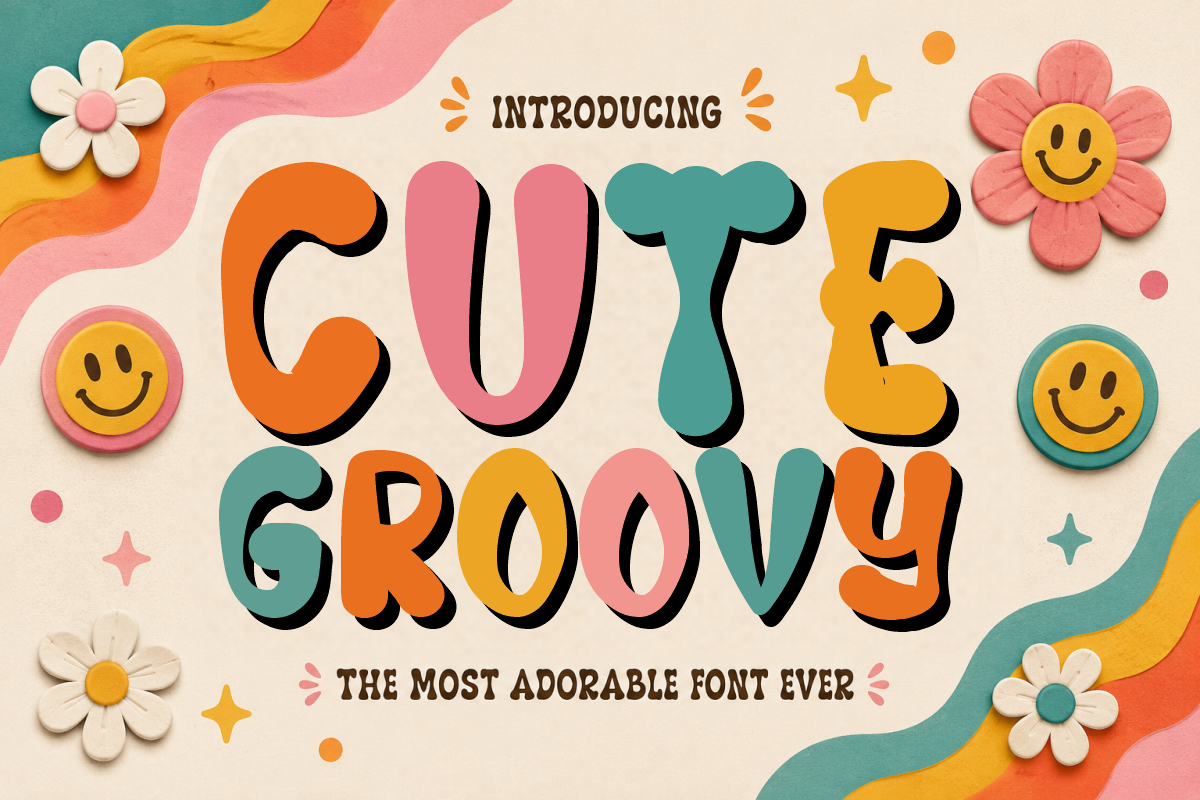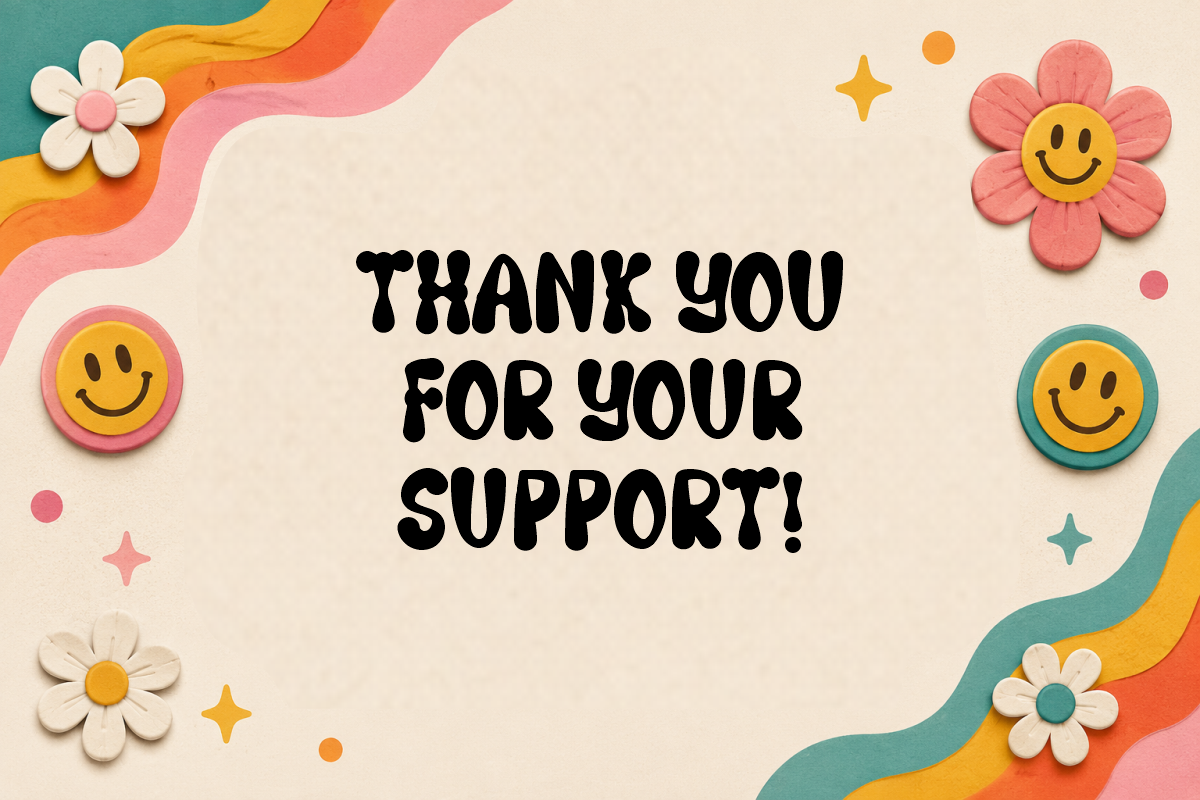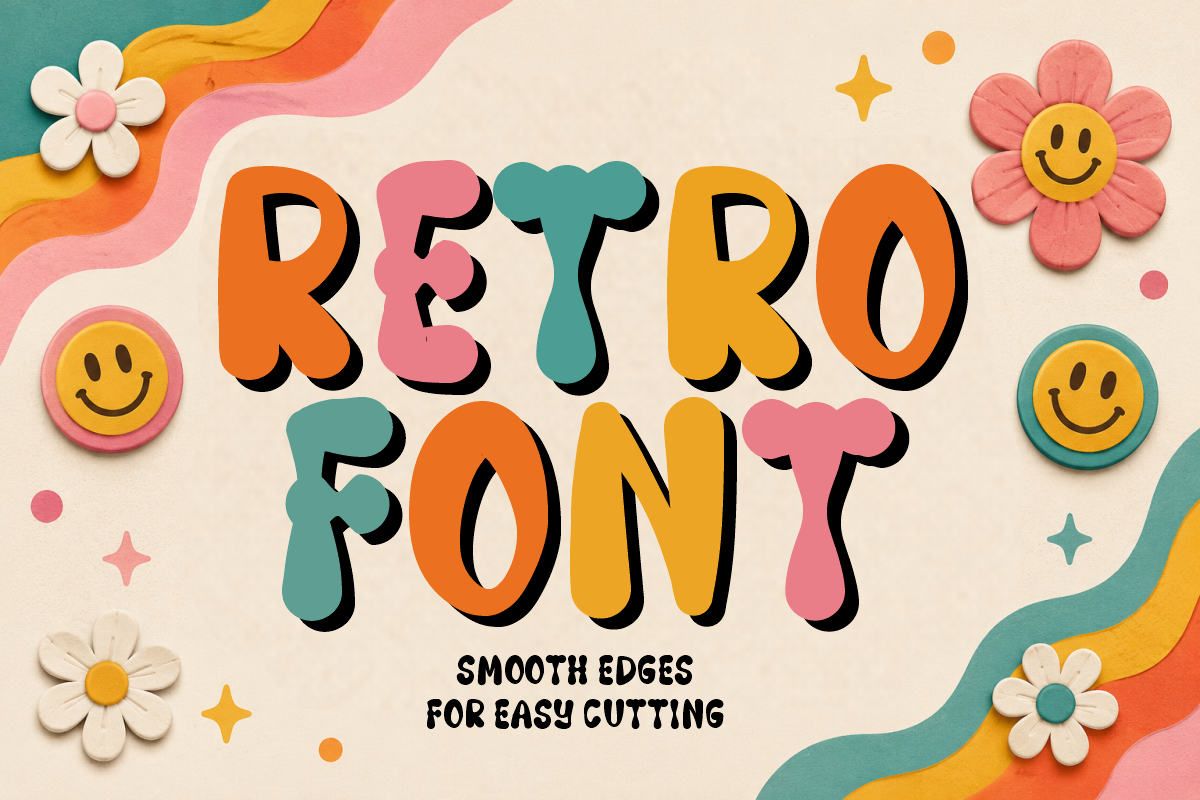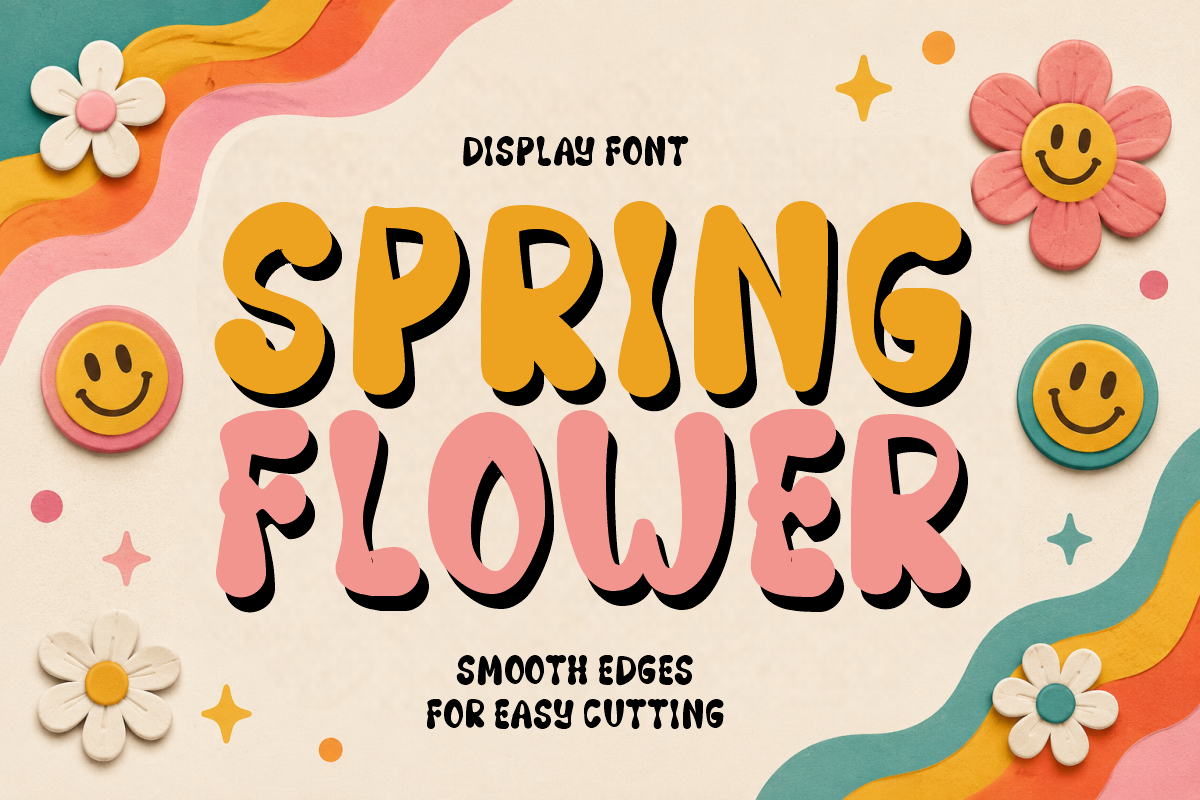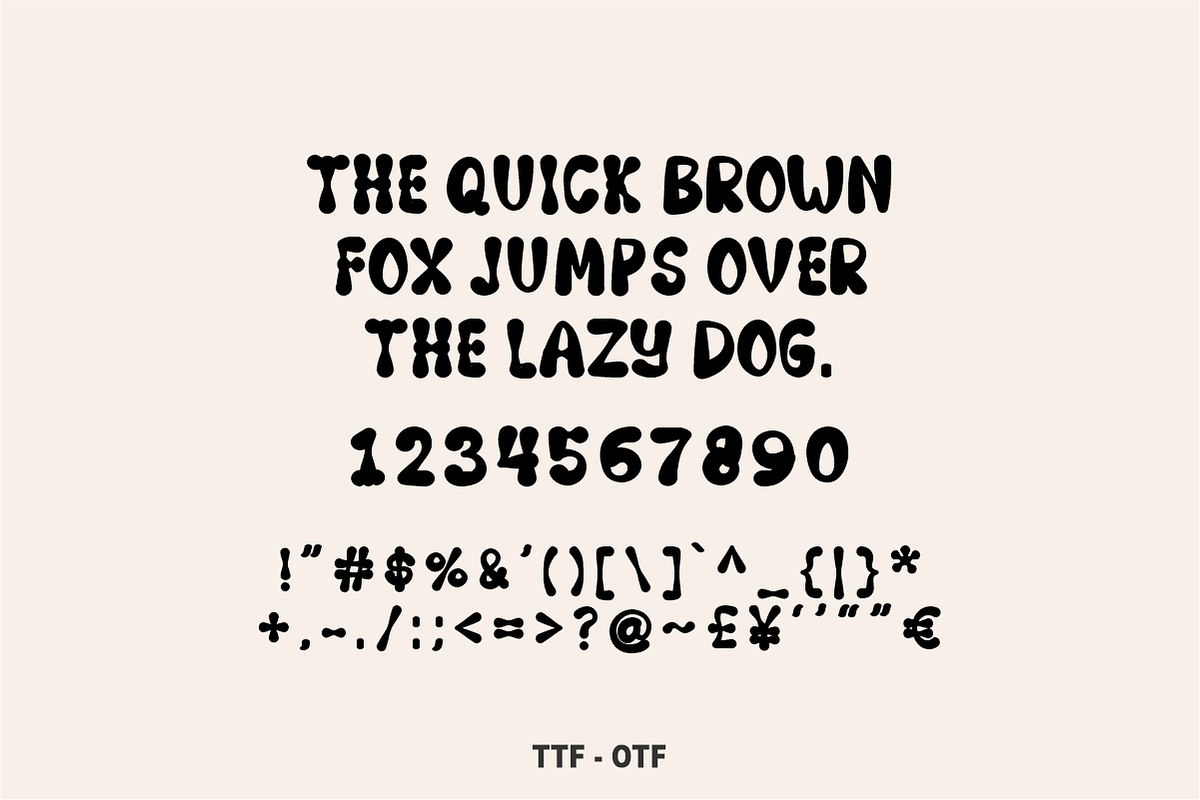
Cute Groovy - Retro 70s Display Font
Cute Groovy is a playful, 70s-inspired display font featuring bubbly, wavy letterforms full of retro flower-power charm. Radiating fun vintage vibes and whimsical energy, this adorable groovy font brings a bright, colorful pop to your apparel designs, quote prints, and creative craft projects. Every character is cleanly vectorized to guarantee high-resolution prints and smooth, effortless cutting on Cricut and Silhouette machines.
Uppercase Character Set
Numbers & Basic Punctuation